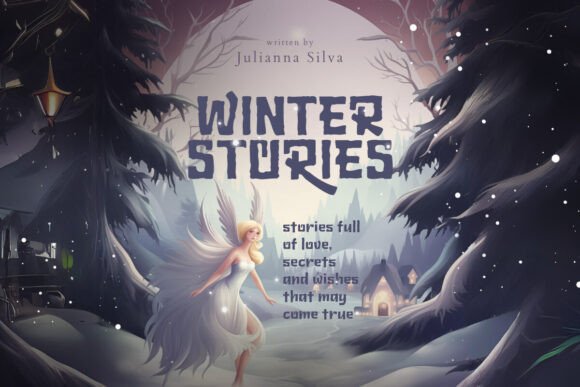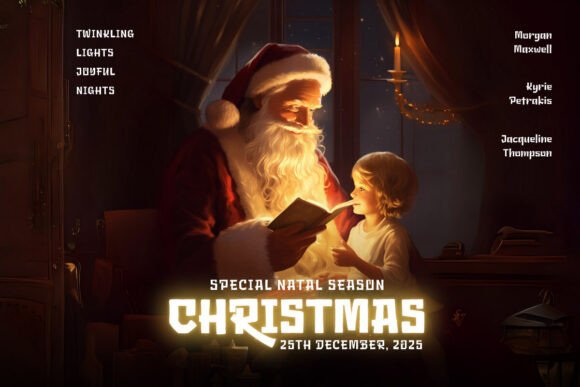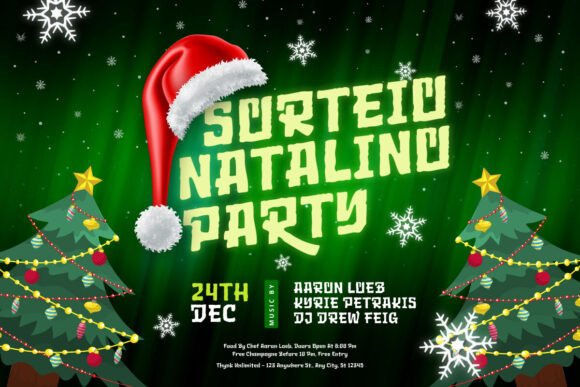
Introduction to Qrog Win Font
As a designer, there’s nothing quite like the thrill of brainstorming creative ideas for a holiday project. The festive season is just around the corner, and you’re itching to bring some sparkle to your designs. Whether it’s a Christmas card, holiday party invitation, or festive product packaging, the right font can make all the difference. That’s where Qrog Win Font comes in – a high-quality, custom-designed font that’s perfect for capturing the magic and warmth of the holiday season.
With its playful curves and festive charm, Qrog Win Font is a valuable design resource that’s sure to bring joy and whimsy to your holiday projects. And the best part? It’s available for free download, complete with a transparent background that’s perfect for seamless integration into your designs. Whether you’re a seasoned pro or a design newbie, Qrog Win Font is an essential tool for any creative project that requires a dash of holiday cheer.
Key Features of Qrog Win Font
- High-quality font designed specifically for creative projects, ensuring a professional look and feel.
- Unique characteristic: Qrog Win Font features a modern and sleek design, making it perfect for contemporary creative projects.
Honest Review: Qrog Win Font
I recently stumbled upon the Qrog Win Font and I must say it’s been a game-changer for my creative project. This free download has been a fantastic addition to my design resource library.
What works well: ✨ The font’s sleek and modern design makes it perfect for a variety of projects. The high-quality vector format ensures that the font remains crisp and clear even when scaled up or down. I’ve also appreciated the transparent background, which allows for seamless integration with my design elements.
Here are some of the font’s key features:
- High-quality vector format
- Modern and sleek design
However, I do have a few limitations to note: ⚠️ The font only includes a limited number of styles and weights, which may not be ideal for complex designs. Additionally, the font may not be compatible with all operating systems or software.
Overall, I’m thoroughly impressed with the Qrog Win Font and would highly recommend it to designers looking for a high-quality, free design resource.
The Qrog Win Font is a versatile and high-quality design resource ideal for any creative project. With its transparent background, you can easily incorporate it into your designs without worrying about background distractions.
To get the most out of the Qrog Win Font, use it in conjunction with other high-quality design resources, such as graphics and images. You can also experiment with different font sizes, colors, and arrangements to create unique and visually appealing designs.
The Qrog Win Font is ideal for a variety of creative projects, including logos, business cards, brochures, social media graphics, presentations, and documents. Its transparent background and high-quality design make it a versatile and essential design resource.